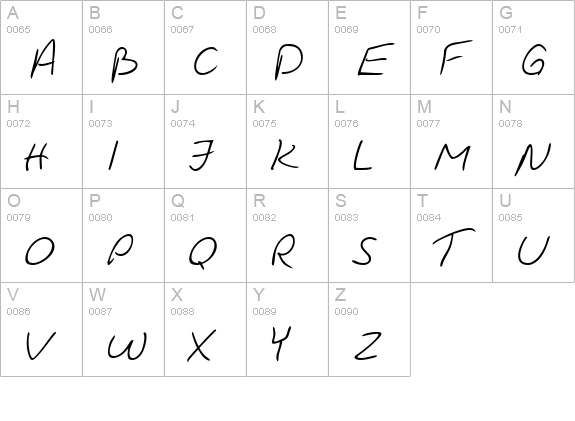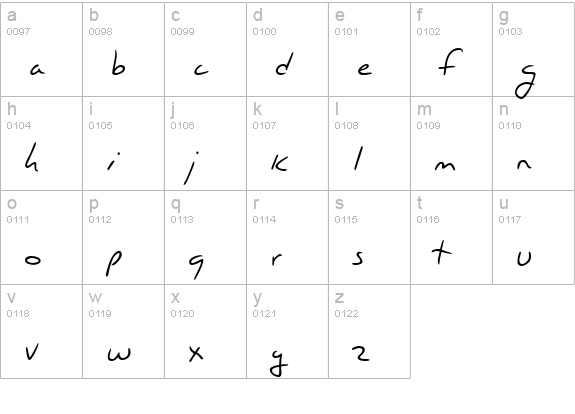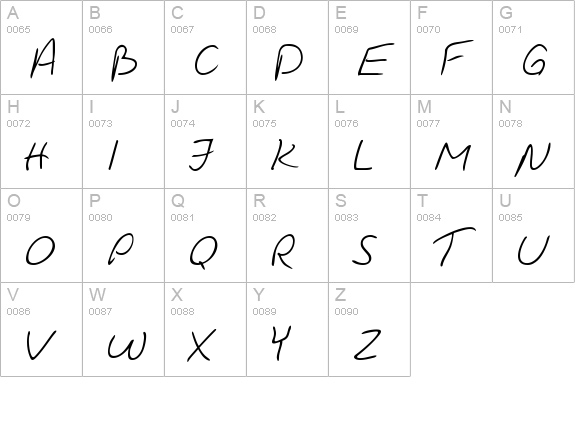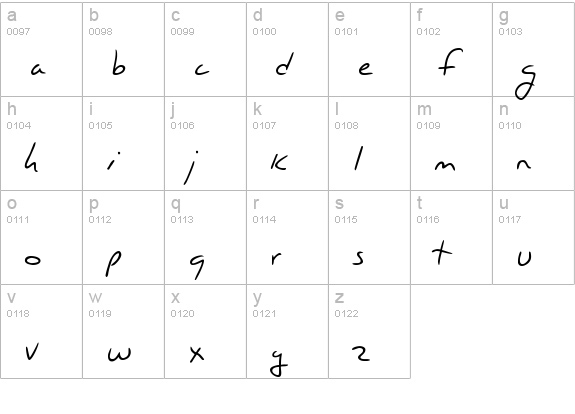
Introducing Jacques Handwriting font, a whimsical and elegant typeface that will add a touch of charm to your projects. With its flowing lines and unique character shapes, Jacques Handwriting is perfect for invitations, greeting cards, and other creative designs. This free font captures the essence of handwritten calligraphy with a modern twist, making it versatile for both personal and professional use. You can freely download Jacques Handwriting font at FontsMarket.com and start adding a personal touch to your designs today. Let your creativity flow with this beautiful and expressive typeface that will surely make your work stand out.